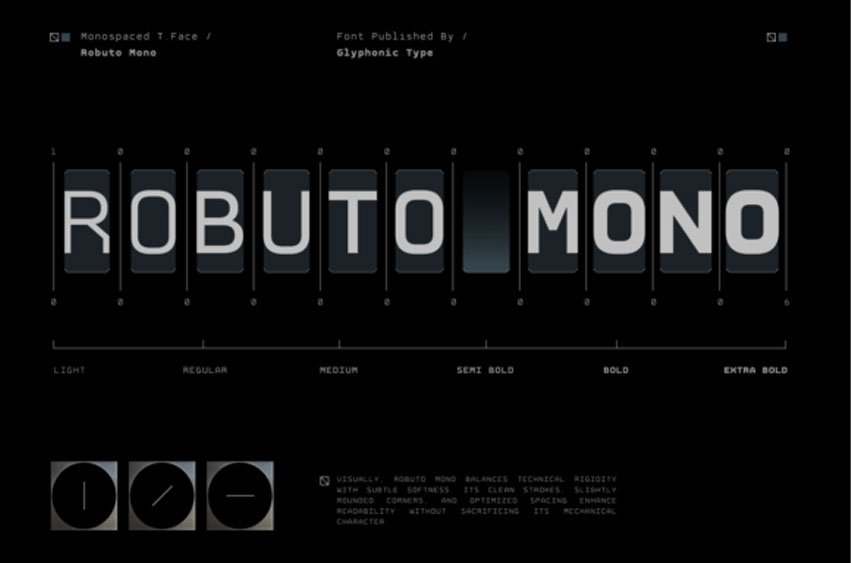
Robuto Mono Font is a contemporary monospaced typeface designed to combine technical precision with modern elegance. Built on a structured monospace system and refined geometric proportions, Robuto Mono delivers a clean, futuristic typographic voice that feels sophisticated, balanced, and highly functional.
As a variable typeface, Robuto Mono offers flexible weight control, allowing designers to create clear hierarchy while maintaining the uniform rhythm that defines a monospaced font. From lightweight interface typography to bold editorial headlines, the font preserves its distinctive modern character across every weight.
Crafted for digital products, technology branding, user interfaces, coding-inspired visuals, editorial systems, and contemporary design projects, Robuto Mono balances functionality with refined aesthetics to deliver a timeless yet future-ready appearance.